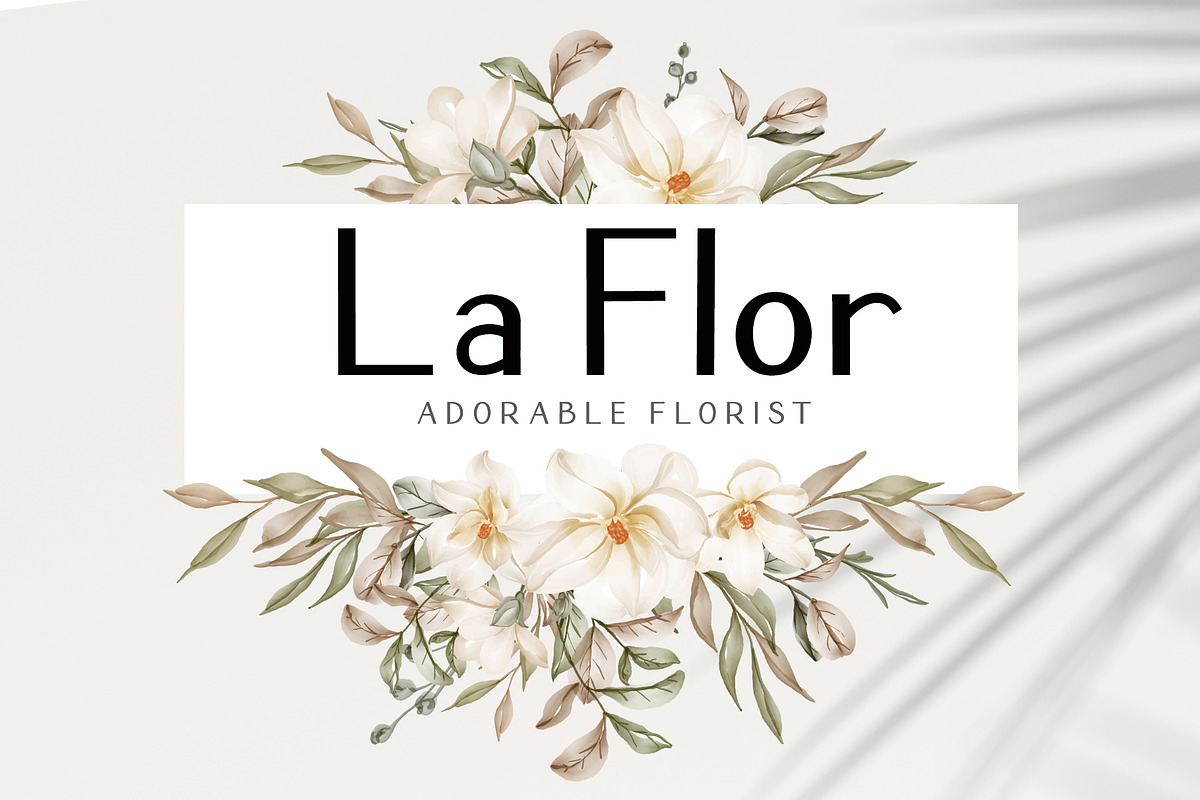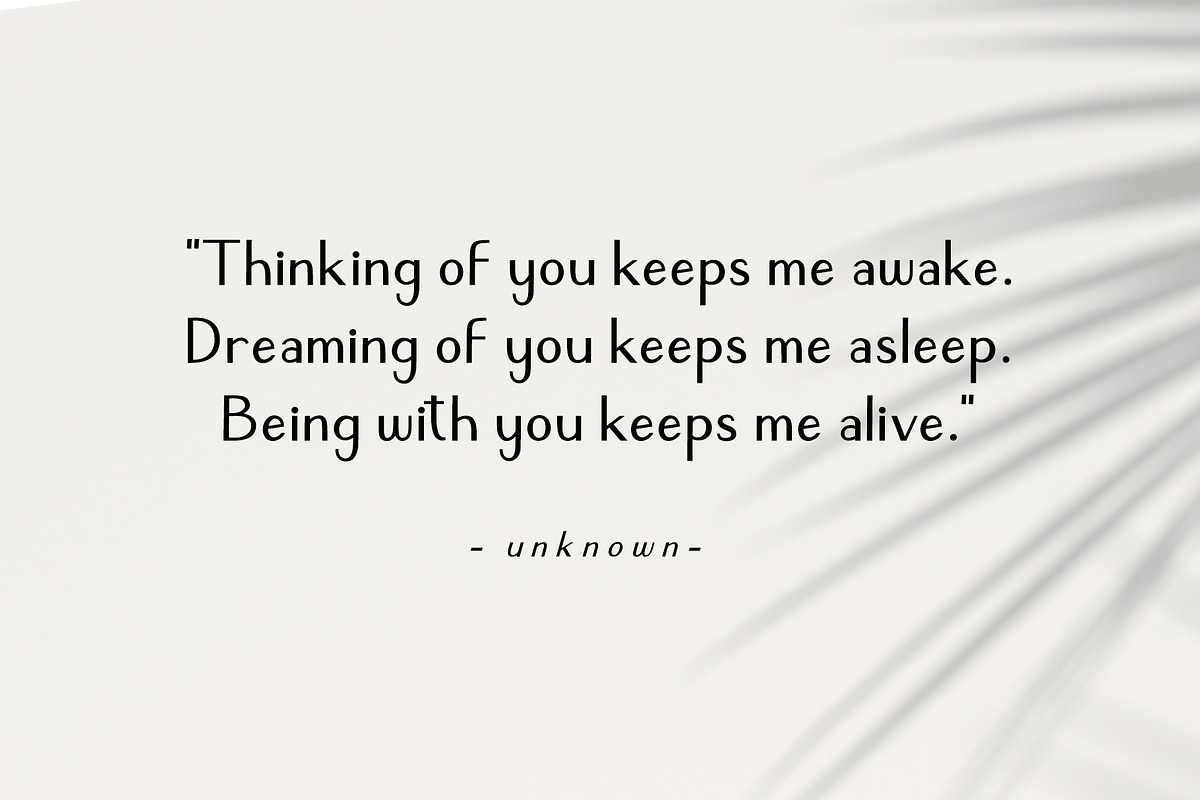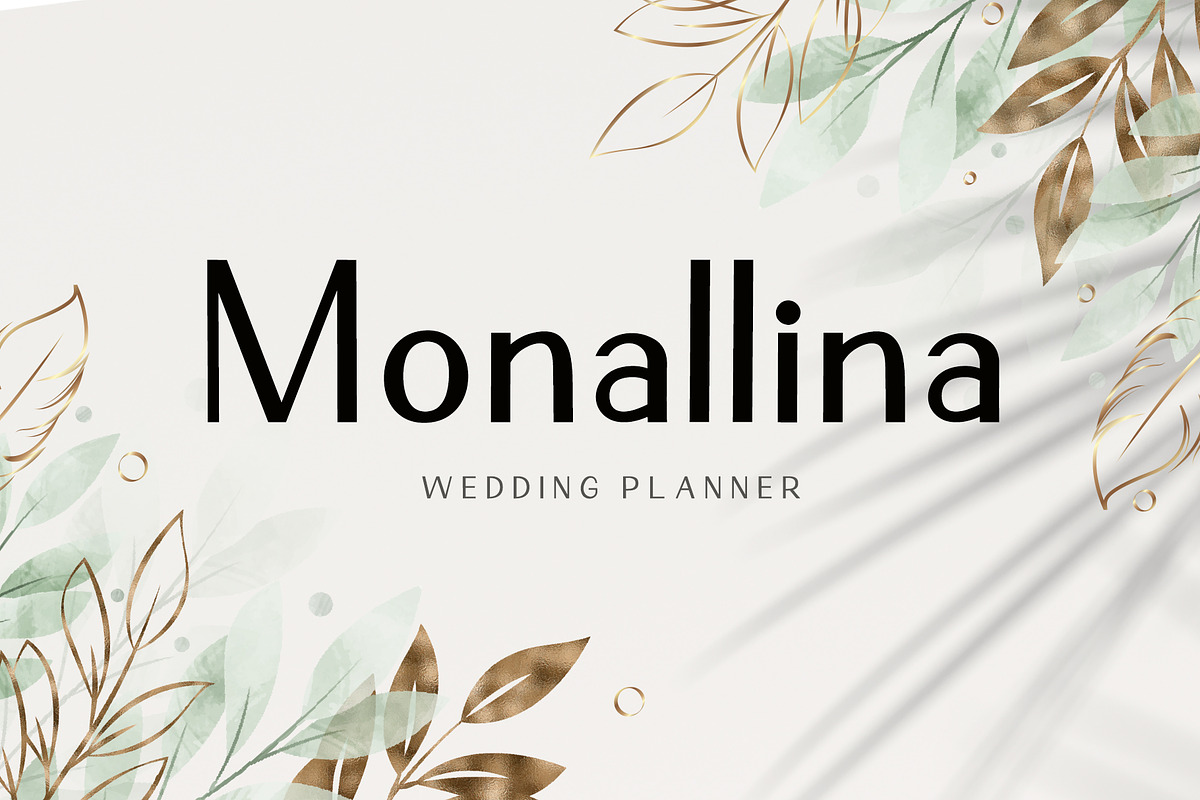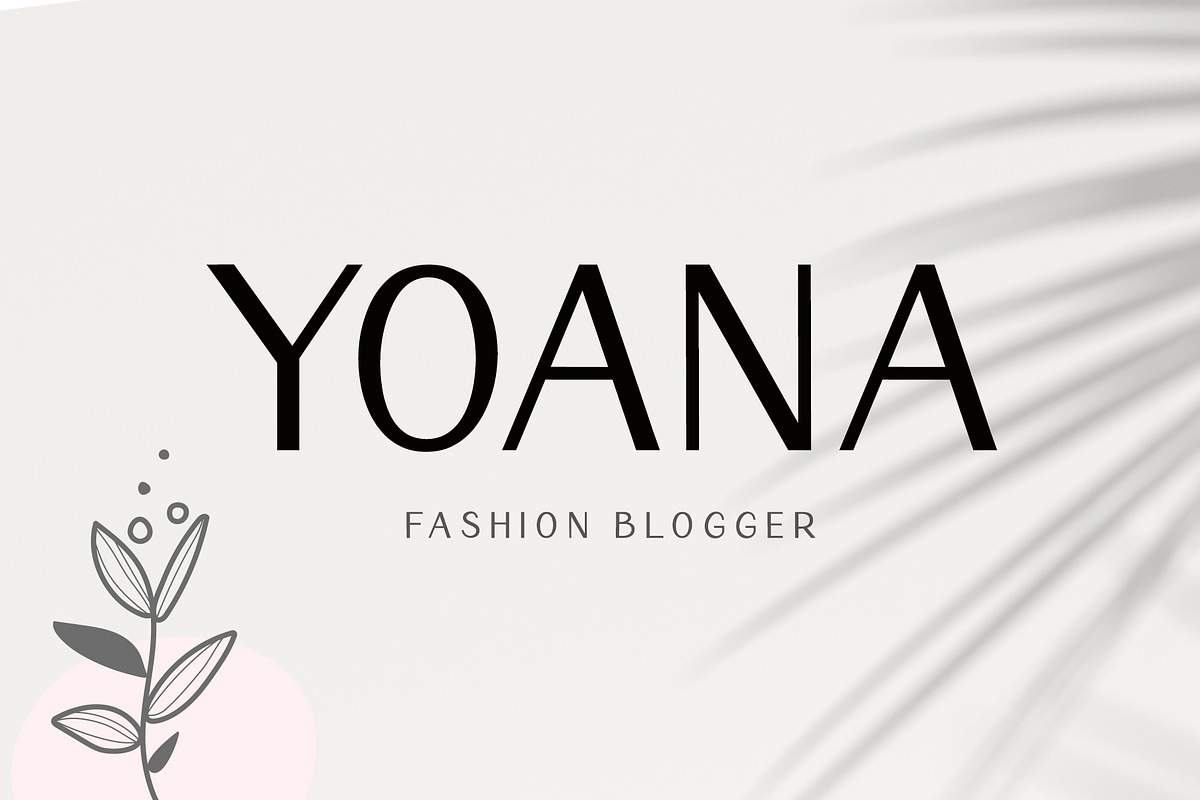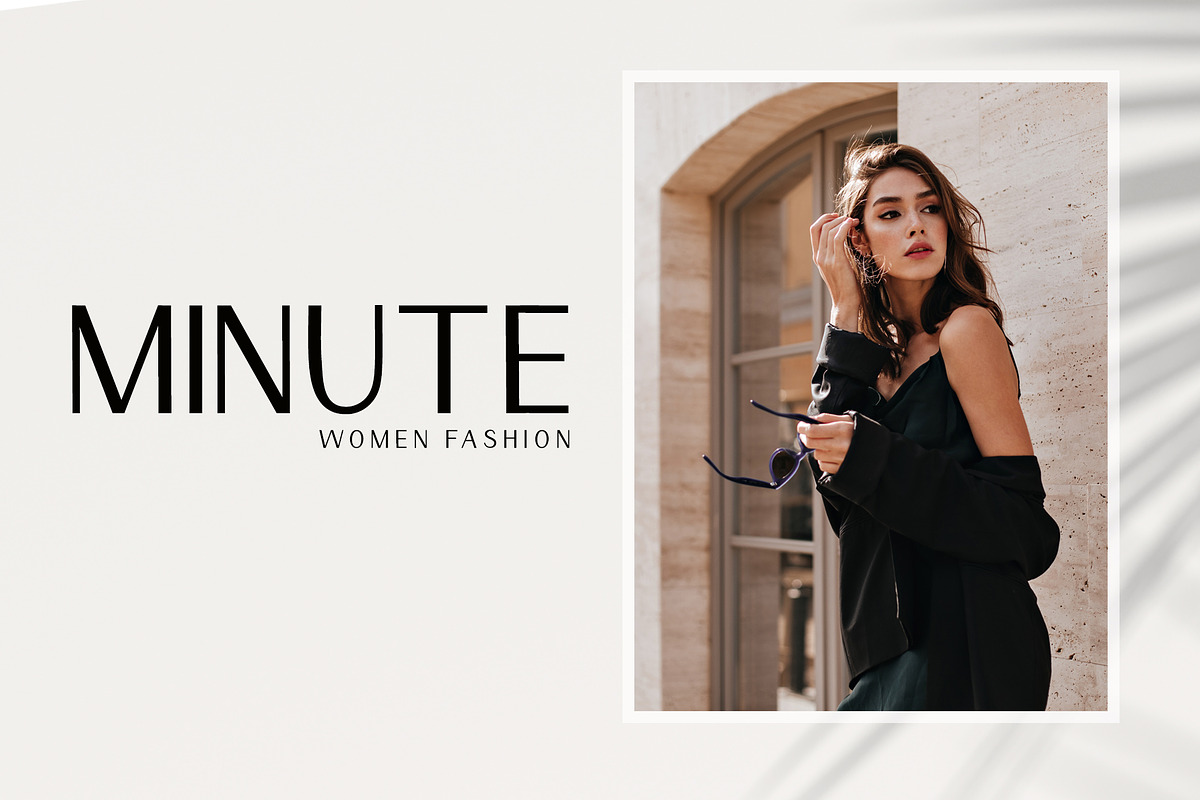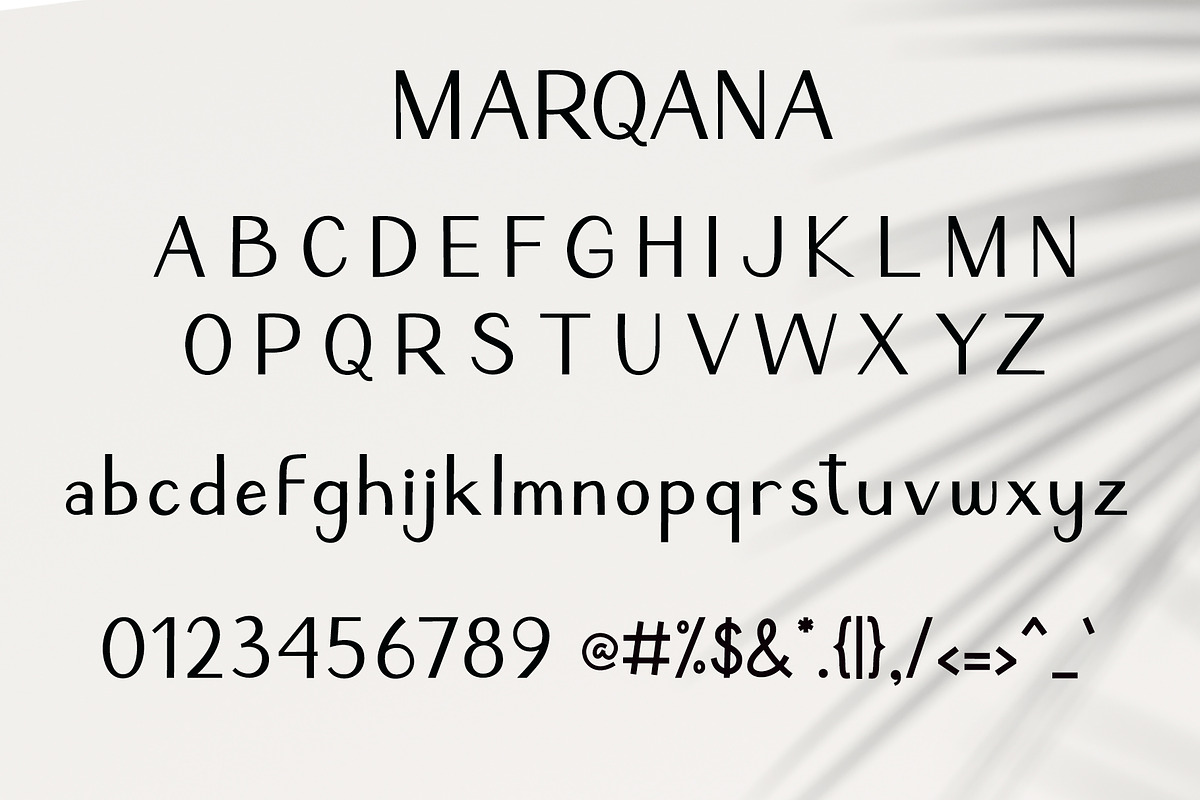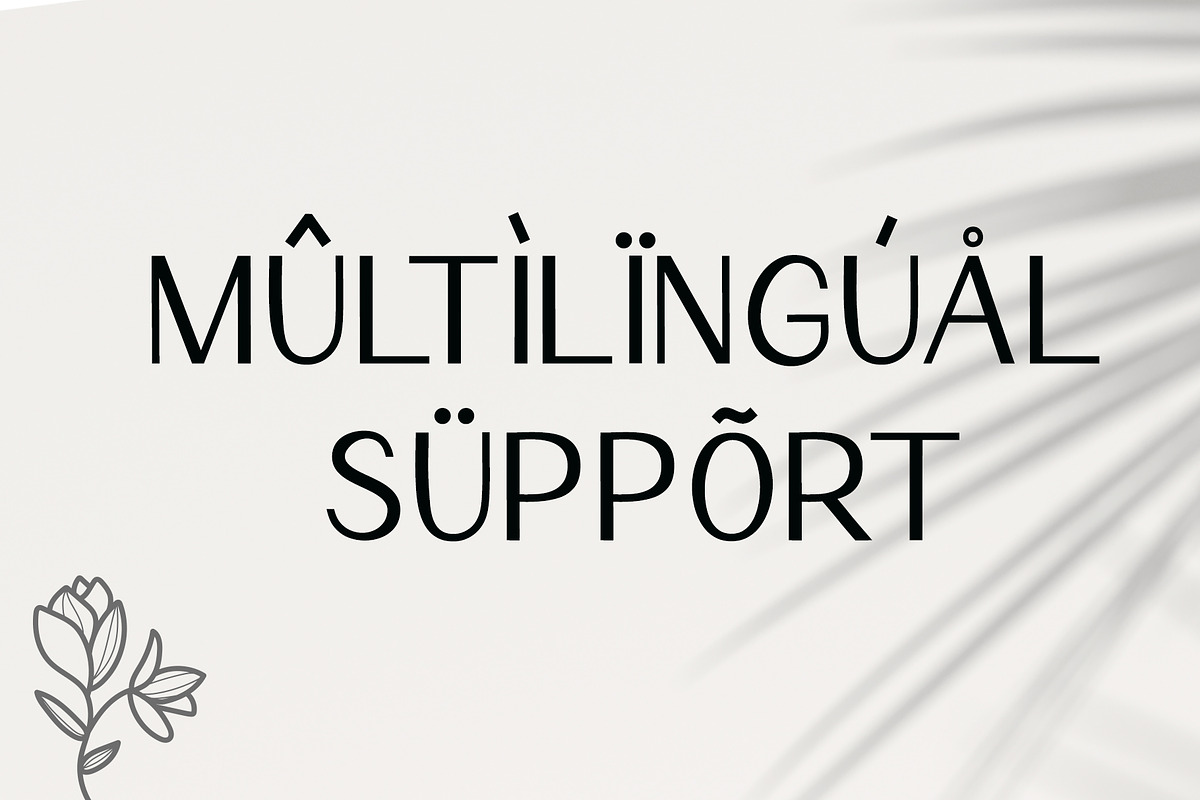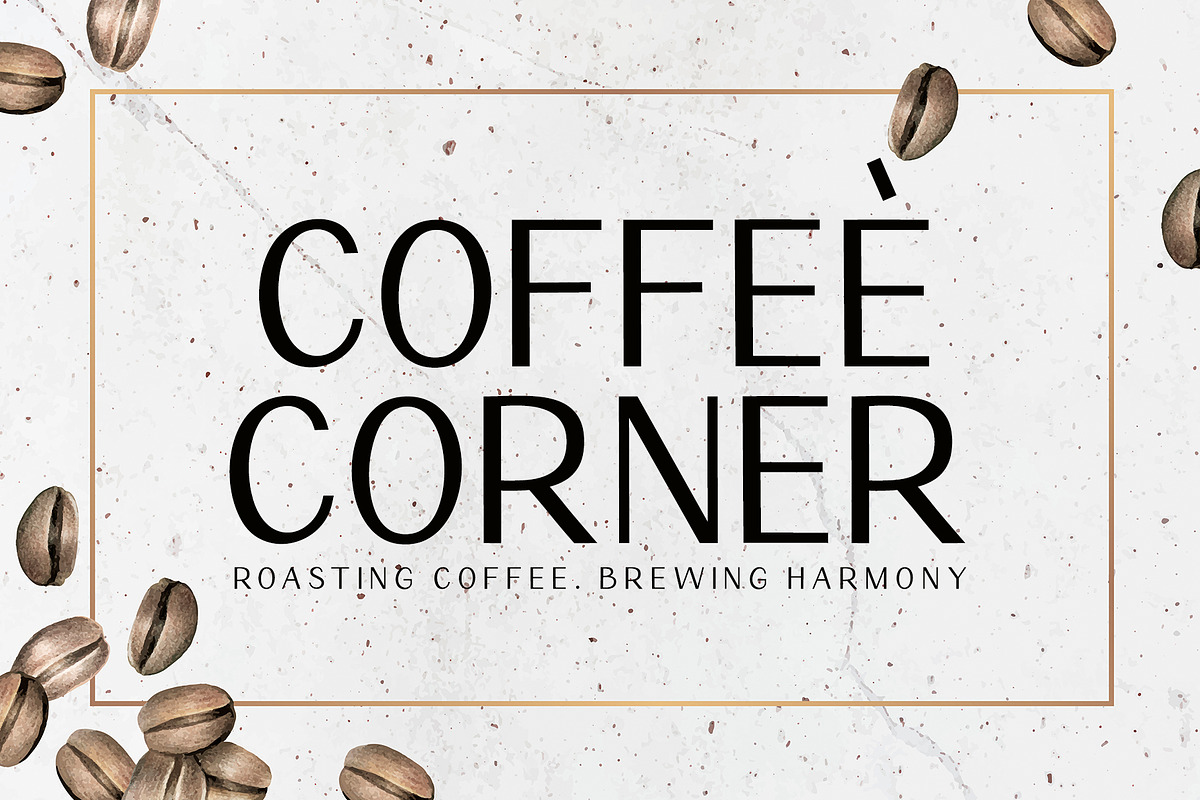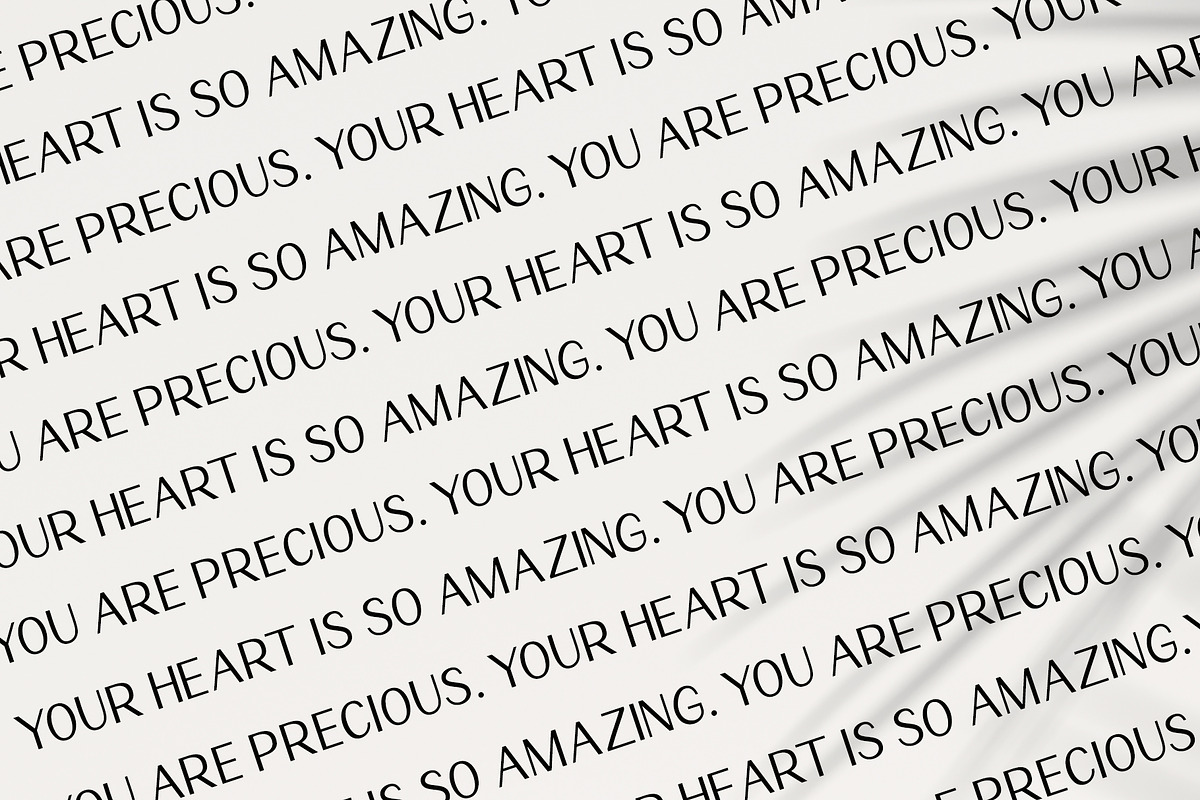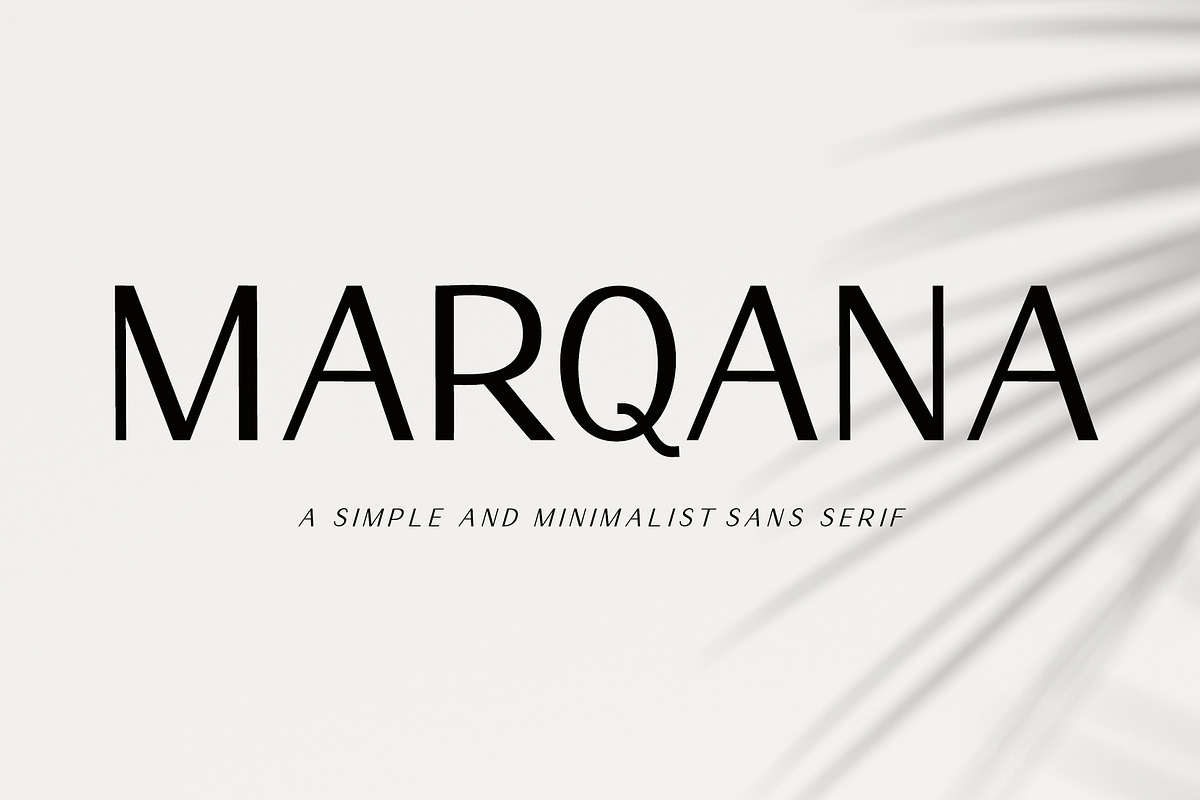
Marqana
Marqana is an elegant and modern sans serif font. This font is ideal for writing web designs, business cards, or pretty much anything else that requires a unique touch.
Marqana Features :
- Support multilingual; ä ö ü Ä Ö Ü ß ¿ ¡
- (a-z) titling, (a-z) swashes, ligatures